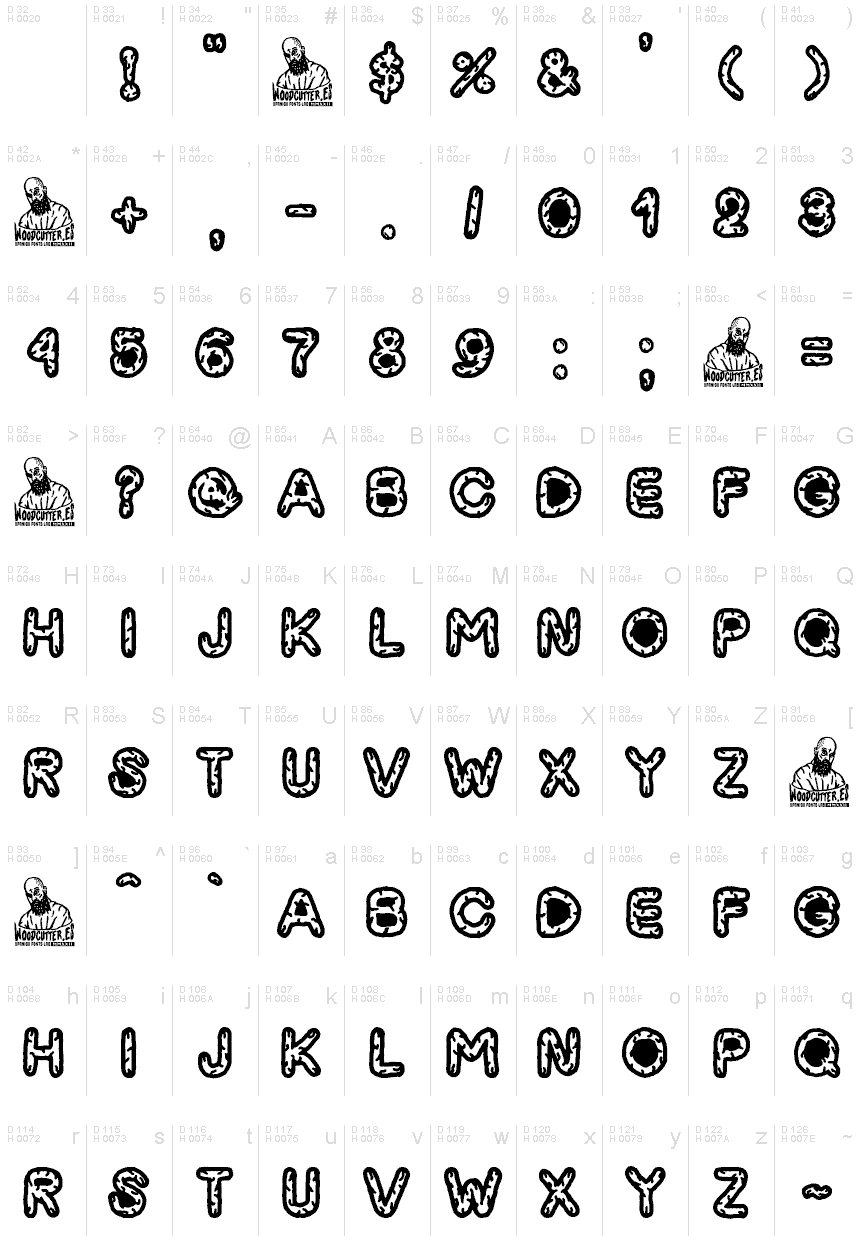
Rompehuesos
Rompehuesos font is a display cartoon creation by Woodcutter with playful organic letters. Although slightly chaotic and textured, the characters are still readable and have a vibrant style that grabs attention. It’s an outstanding choice whenever you’re aiming for a bold impact.